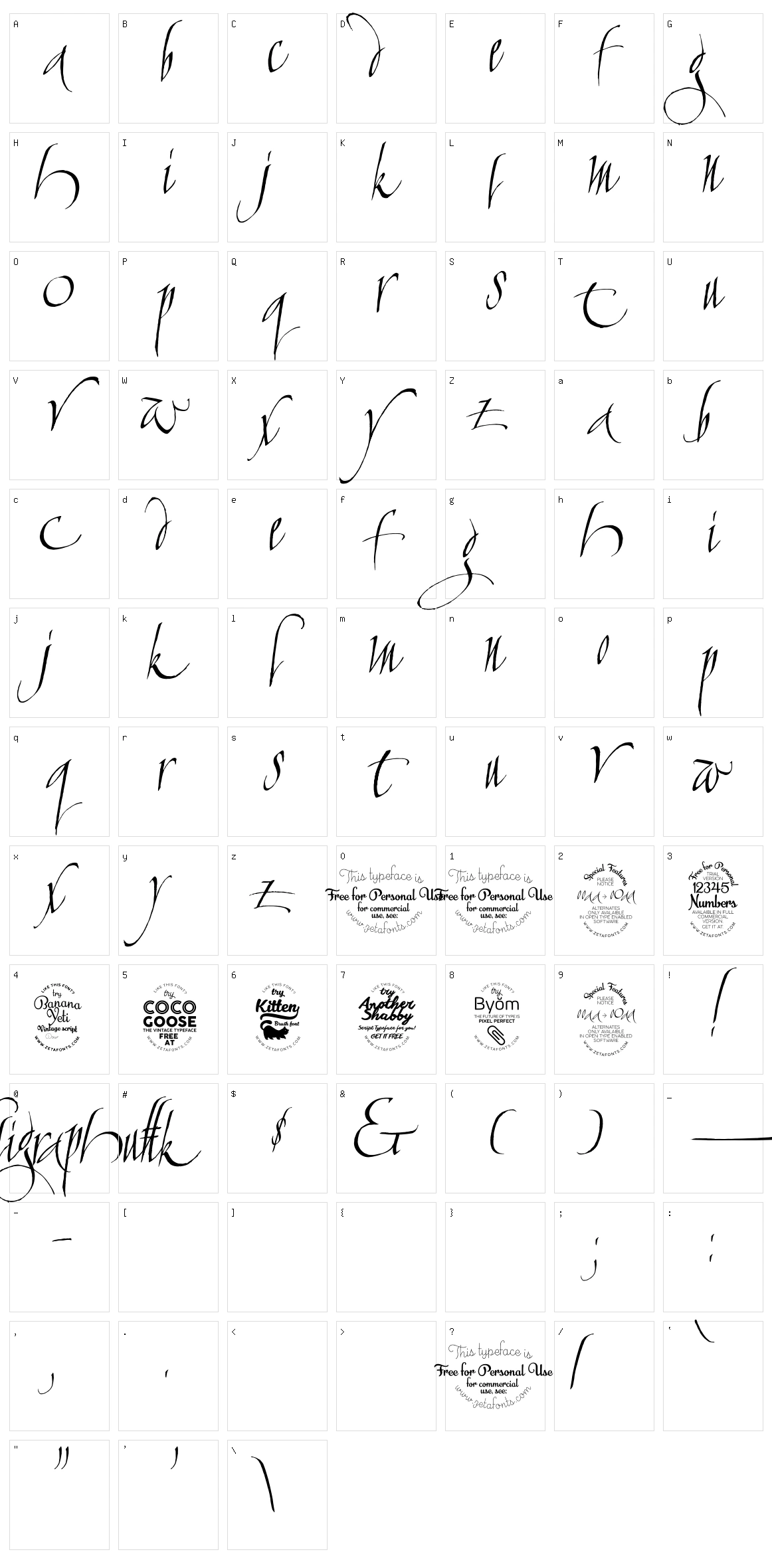
Calligraphunk is an experimental typeface that mimicks polyrithmic calligraphy, by alternating two sets of lowercase letters to obtain a handwritten like typeface.
Calligraphunk powerful flow is perfect for logo design and display use; the family comprises a cleaner mono width font for longer text blocks.
Calligraphunk covers over 40 languages that use the Latin alphabet, with a full range of accents and diacritics.
Calligraphunk makes full use of Open Type substitutions to create its peculiar handmade look. Take care: open type features are developed using open type technology, fully compatible with Adobe software and major design softwares and OS, but not supported by every software. Check before buying!